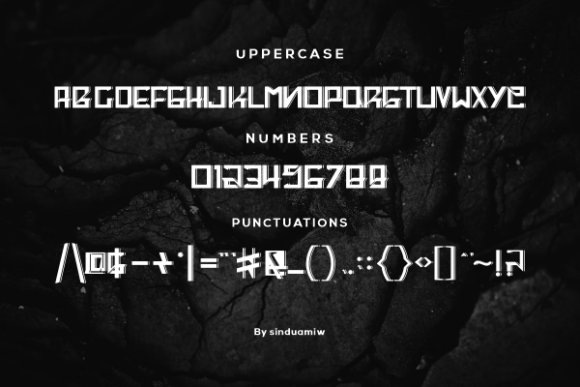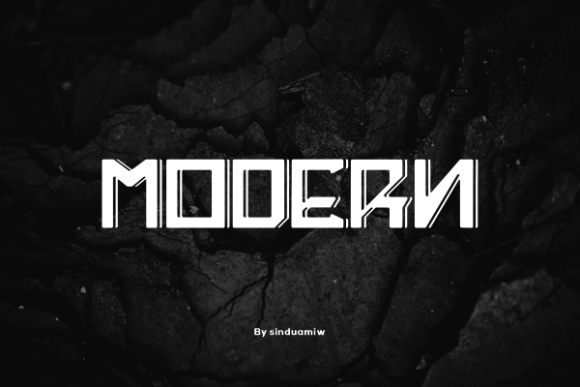
Unleash Your Creativity with the Borakon Font
Do you remember that moment when you finally nailed the design for your favorite project? The rush of excitement, the sense of accomplishment, and the feeling of knowing you’ve created something truly unique? For designers, those moments are what drive us to push the boundaries of creativity and innovation.
One of the key elements that can make or break a design is typography. That’s why we’re excited to introduce you to the Borakon Font, a cool, powerful, and modern sans serif font designed to take your designs to the next level. Whether you’re working on loud posters, quotes, or anything in between, the Borakon Font is the perfect addition to your design arsenal.
What sets the Borakon Font apart is its versatility and uniqueness. With its modern sans serif design, it’s perfect for designers who want to add a touch of edginess to their work. The Borakon Font is a valuable tool for any designer looking to elevate their typography game and create stunning, memorable designs.
Borakon Font Key Features
- Font Family: Borakon Font comes in a single font family with multiple styles, including Regular, Bold, Italic, and Bold Italic.
- Unique Characteristic: The Borakon Font features a unique, modern design with a mix of geometric and organic elements, giving it a distinctive look that sets it apart from other fonts.
Borakon Font Review
Overall, I’m quite impressed with the Borakon font. It’s a beautiful, high-quality typeface that’s perfect for various design projects. ✨
- The font’s modern and sleek design makes it ideal for contemporary projects.
- It’s highly legible, even at small font sizes, which is essential for digital designs.
- The font comes in multiple weights and styles, providing plenty of options for customization.
However, there are a few limitations that I’d like to point out. ⚠️
- The font may not be suitable for projects that require a more traditional or classic look.
- Some users may find the font too modern or trendy, which may not appeal to all audiences.
- The font’s complexity may lead to slower rendering times in certain software.
Overall, I’m impressed with the Borakon font’s versatility and quality. While it may have some limitations, it’s a great addition to any designer’s toolkit. If you’re looking for a modern, high-quality font, Borakon is definitely worth considering.
The Borakon font is ideal for:
1. Creating eye-catching titles and headings.
2. Designing modern and minimalist graphics.
3. Adding a touch of sophistication to business presentations.